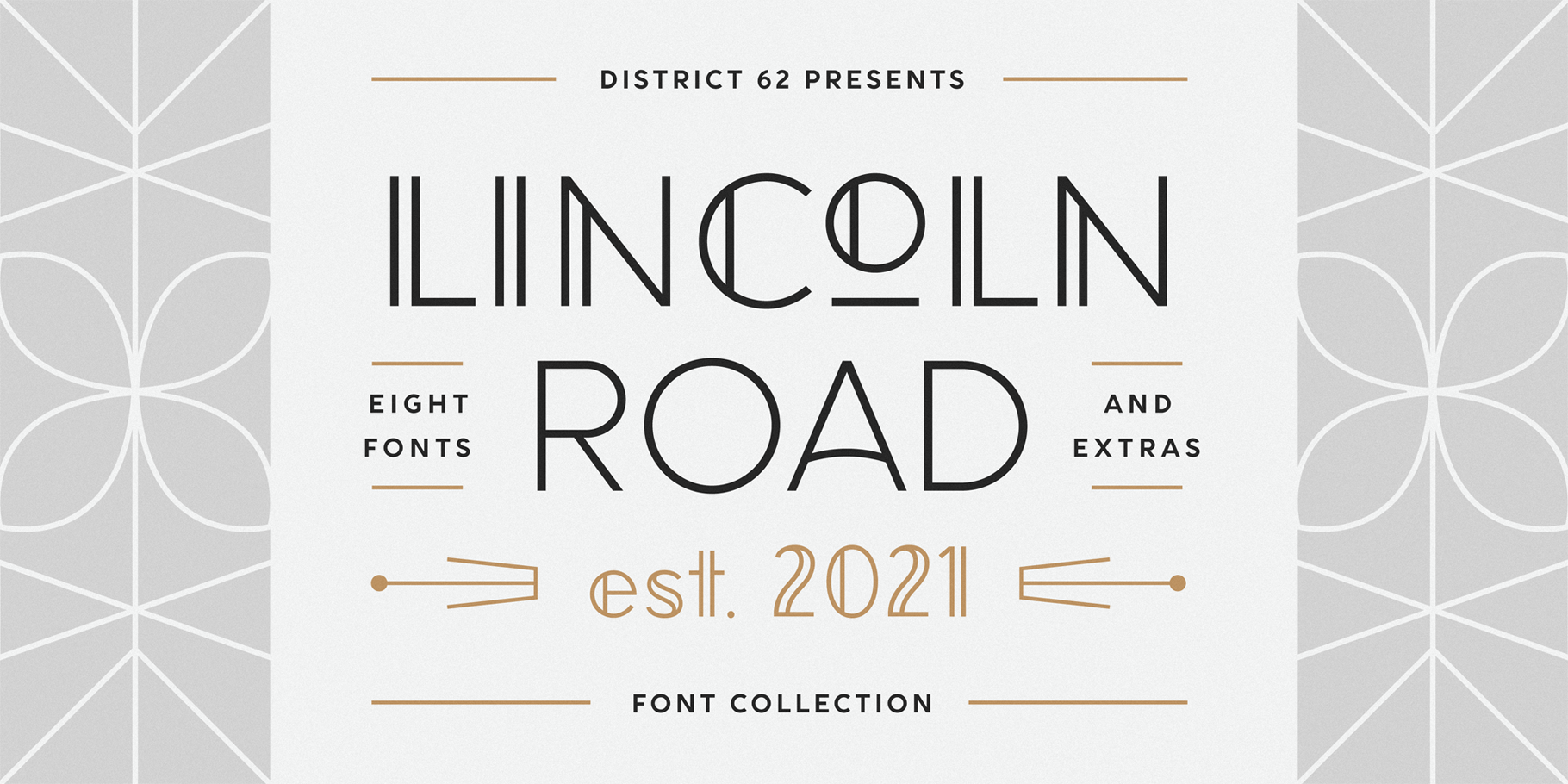
Lincoln Road Font is perfect for American heritage brand identities, classic automobile advertising, vintage Americana signage, traditional roadside diner menus, nostalgic Route 66 tourism promotions, retro gas station branding, classic car show materials, patriotic memorial designs, historic American town signage, and authentic Midwest tourism campaigns. Its distinctive American road character makes it ideal for projects requiring classic Americana appeal and vintage highway authenticity.
What makes Lincoln Road Font exciting is its authentic embodiment of American highway culture and classic roadside heritage with traditional letterforms and vintage characteristics that capture the essence of mid-century American travel and nostalgic road trip experiences. The font features classic proportions, roadside-inspired details, and authentic character construction that create genuine Americana atmosphere and highway appeal. Its nostalgic personality brings warmth and authenticity to contemporary designs while maintaining the clarity essential for wayfinding communications and heritage presentations. The carefully crafted vintage elements ensure historical accuracy while preserving the distinctive character that embodies the essence of American road culture and highway excellence.
Lincoln Road Font comes in multiple heritage variations including Light, Regular, Medium, Bold, and Classic styles. Each family member maintains the distinctive American character while offering comprehensive flexibility for heritage typography and Americana brand system development. The complete font family includes alternate characters, American symbols, and vintage decorative elements that provide extensive tools for creating immersive heritage design experiences and authentic American brand storytelling.
Whether you're developing heritage brands, tourism projects, or vintage Americana campaigns, Lincoln Road Font Free Download provides the authentic American character needed to communicate with heritage enthusiasts and travelers who appreciate classic American culture and roadside authenticity. The font's nostalgic appeal resonates with classic car enthusiasts, heritage tourists, and Americana collectors seeking authentic American credibility and vintage sophistication. Its comprehensive character set includes American symbols and heritage marks, making it perfect for creating complete Americana brand systems and memorable heritage storytelling across diverse tourism applications and vintage-focused design projects that celebrate American road culture and heritage excellence.